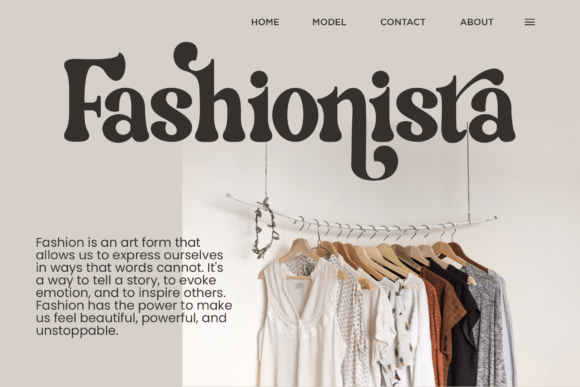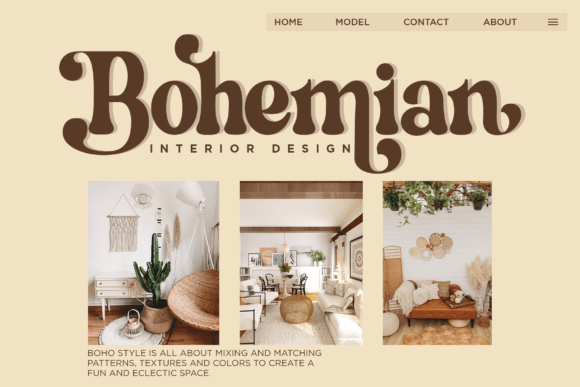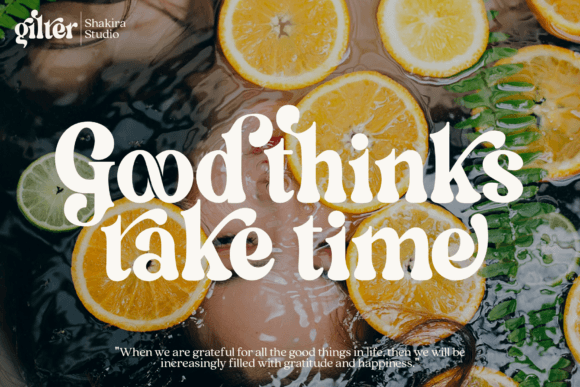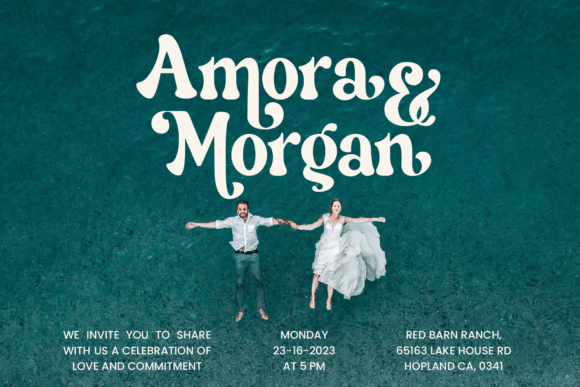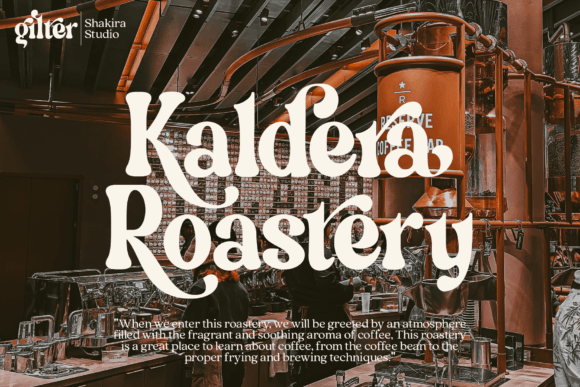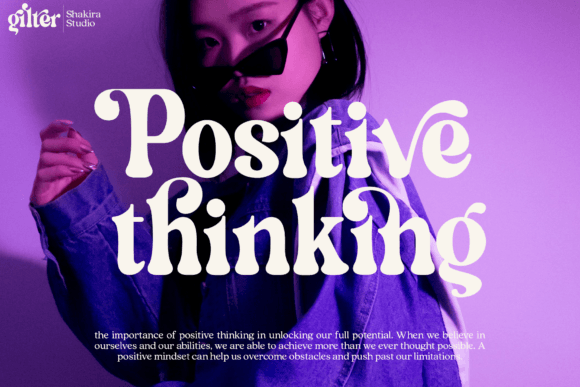
Introduction to Gilter Font
Gilter is a font created specifically to give your designs a modern, stylish, and unique feel.
With a combination of fun retro serif shapes and an elegant appearance, this font is the right choice for designs that want to display a creative impression and be different from the others Gilter presents strong and tough-looking letter characters but still maintains a friendly and welcoming impression.
Gilter Font offers exceptional quality and versatility, making it a valuable addition to your design toolkit. Whether you’re creating for personal projects or commercial use, Gilter Font delivers professional results.